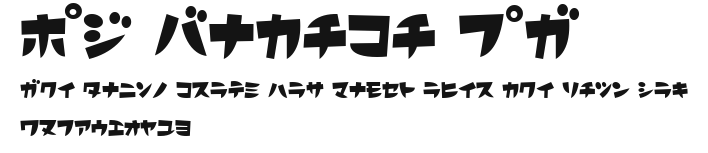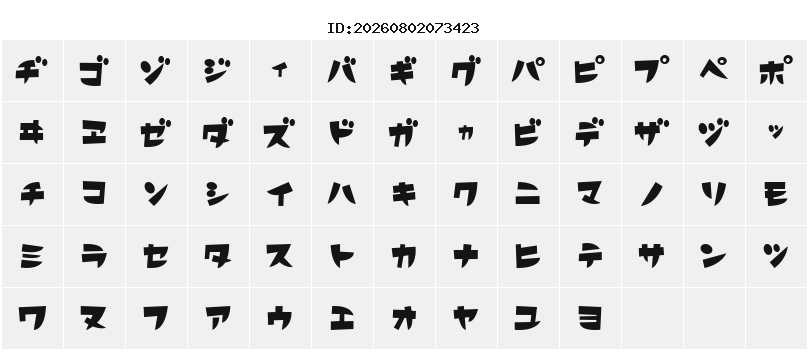
About MD Futaba KT.ttf
MD Futaba KT.ttf is a modern, elegant sans-serif font designed for ultimate readability and visual harmony. Perfect for branding, headlines, web design, and print materials.